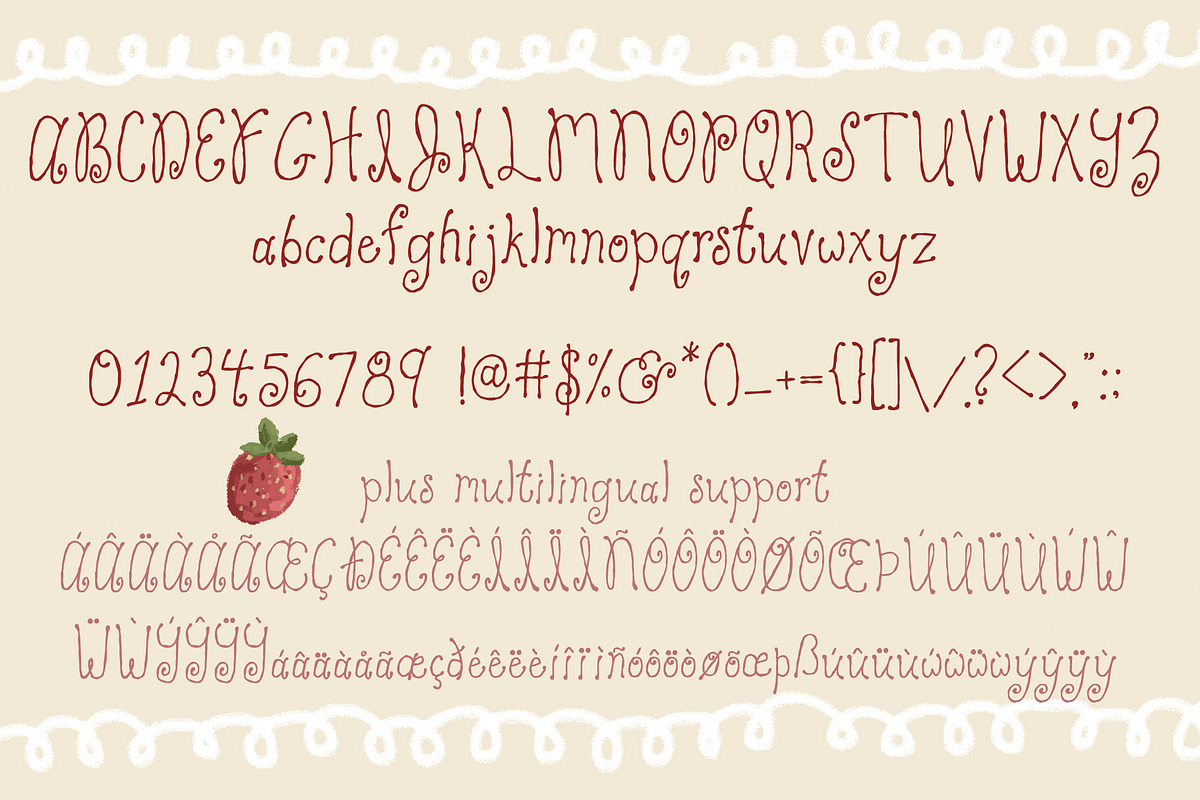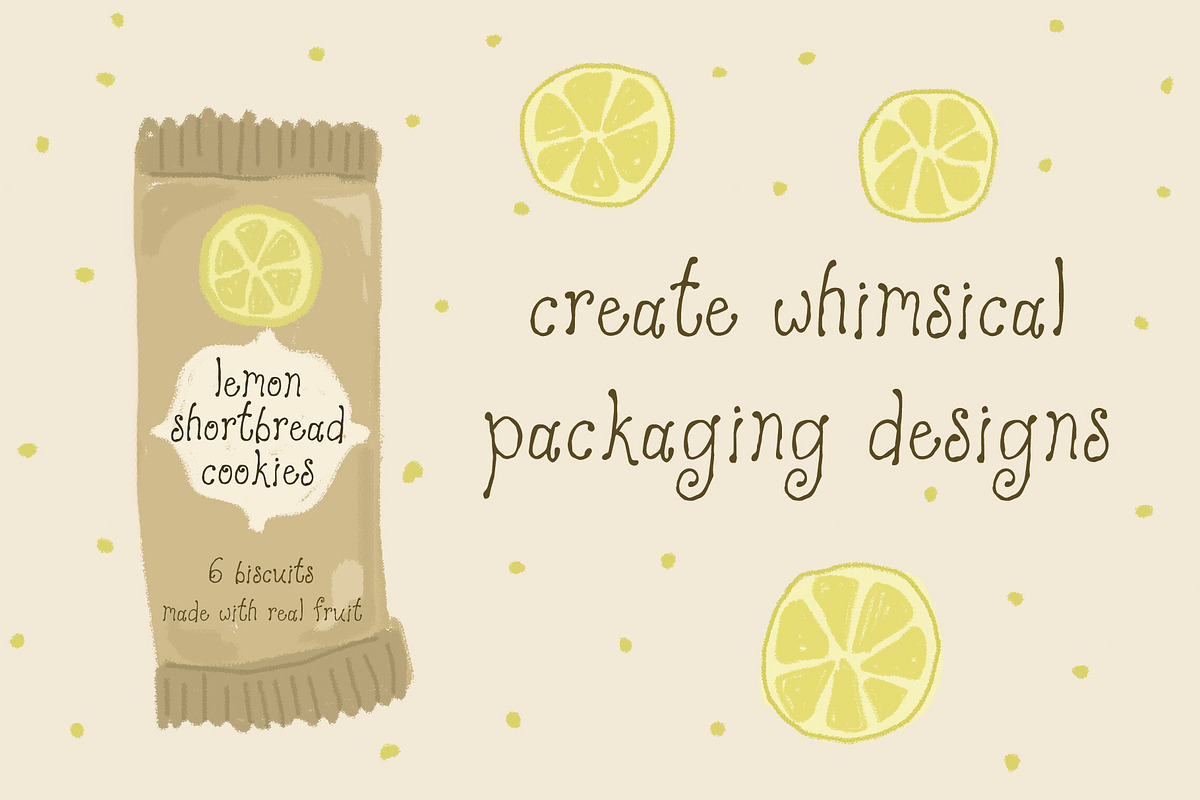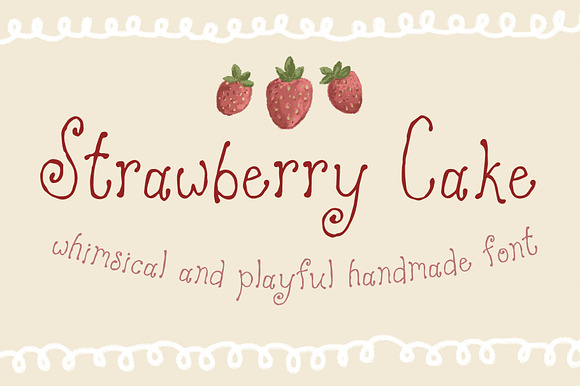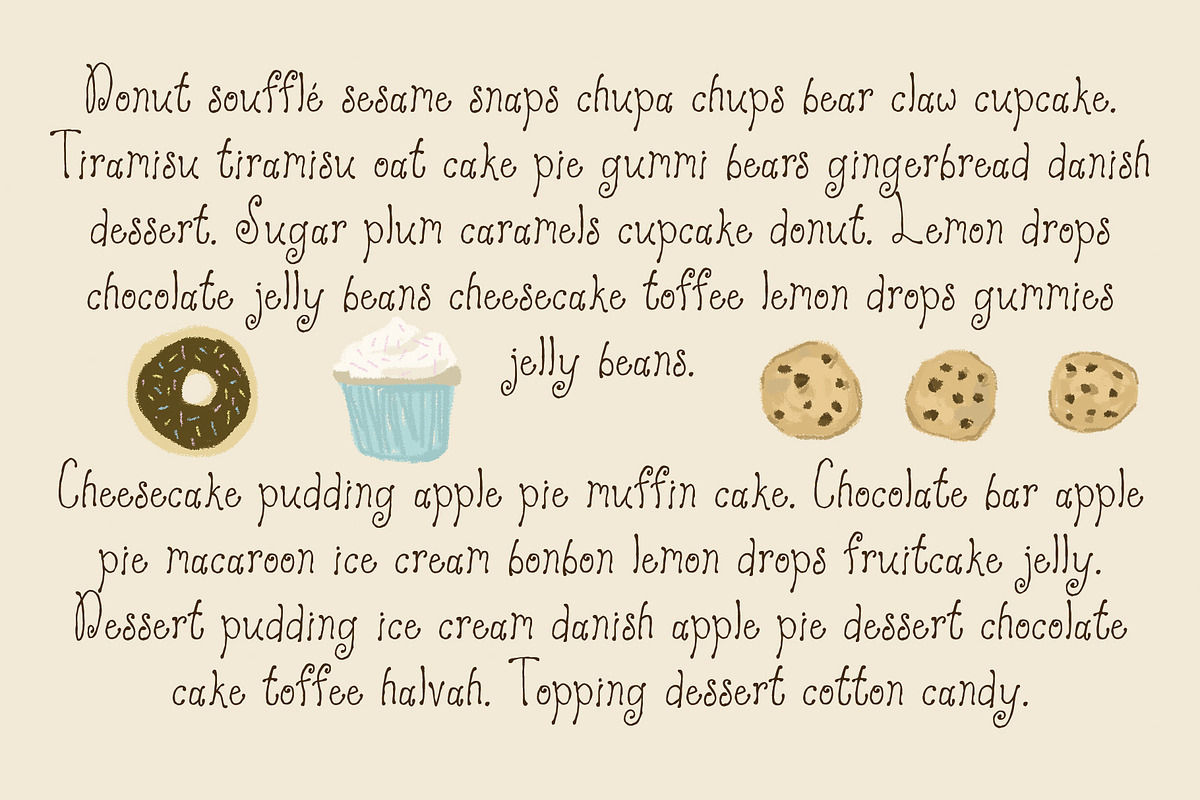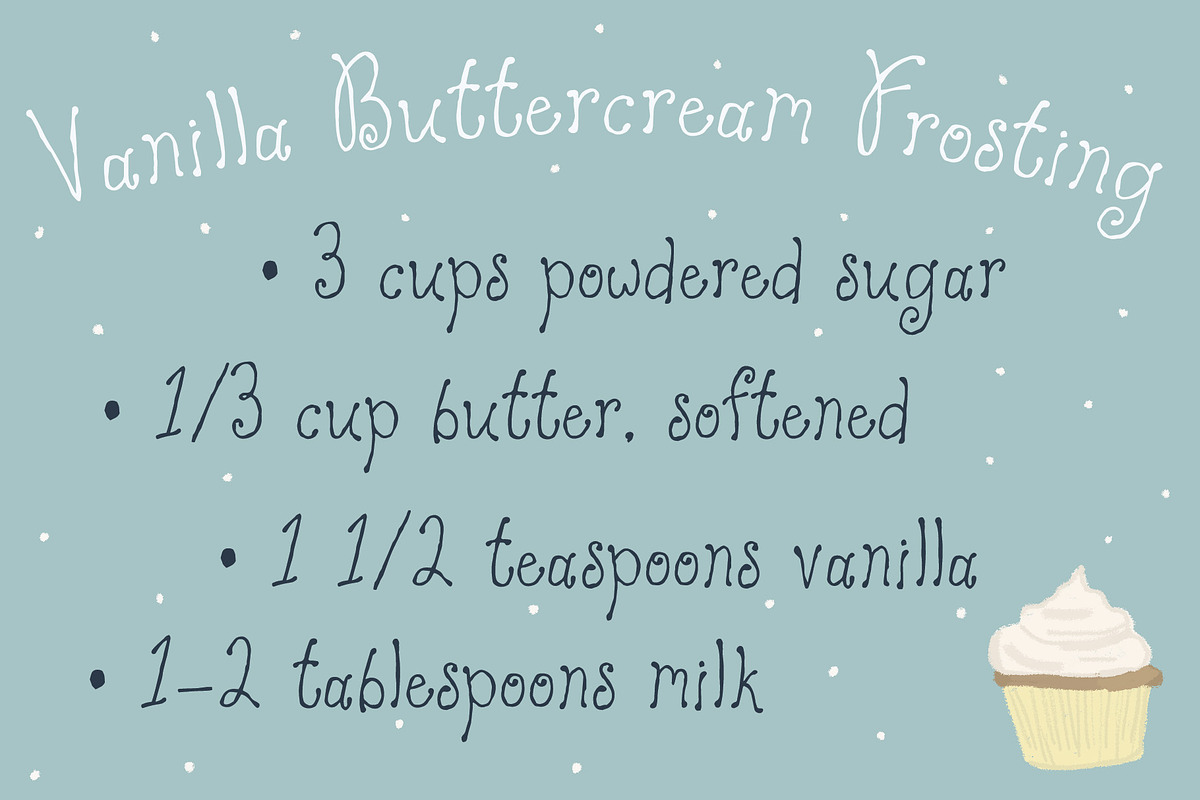
Strawberry Cake Whimsical Font
Strawberry Cake is a sweet and whimsical hand drawn font! It is playful and unique with swirly letters and a rough edge.
Strawberry Cake Whimsical Font by Kellie Jayne Studio fits naturally into Branding, posters, packaging, typography.